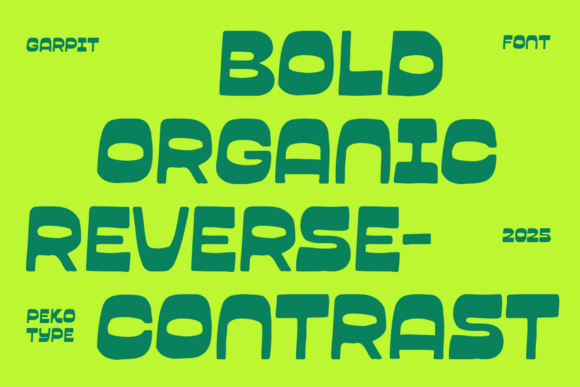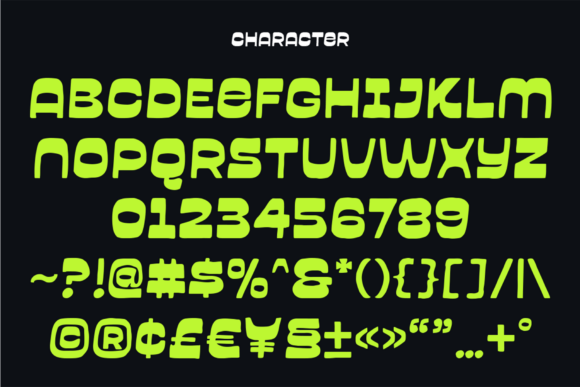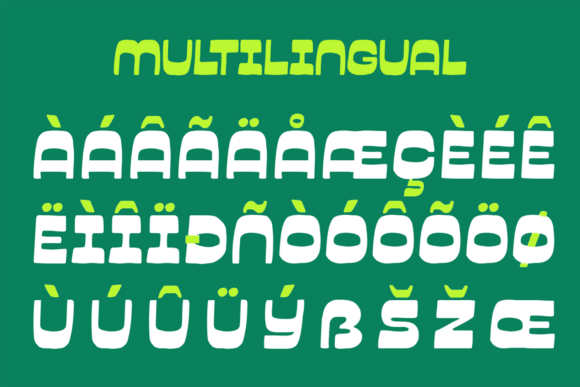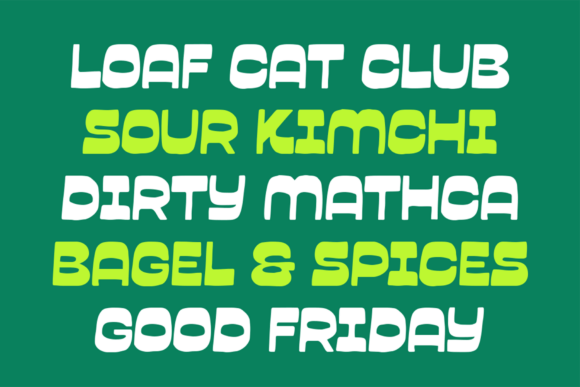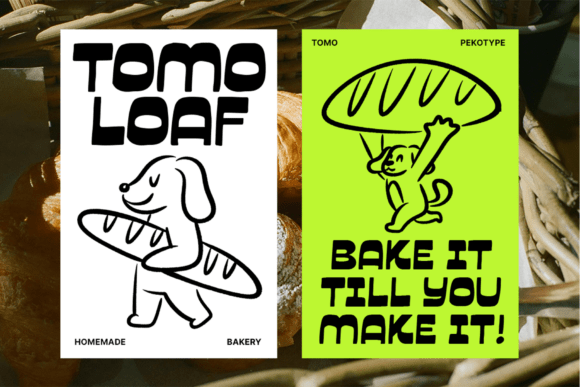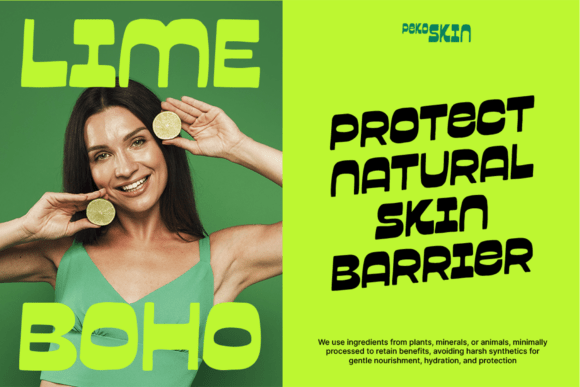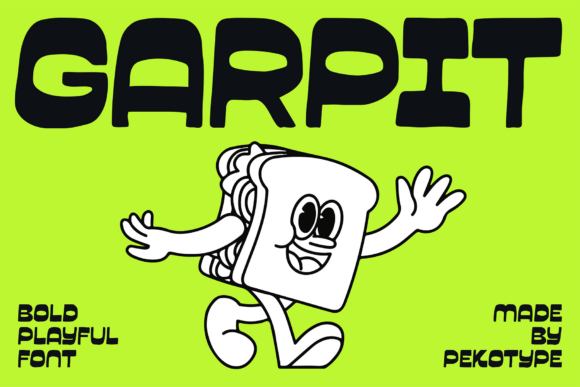
Introducing Garpit Font: The Bold, Playful, and Organic Typeface That’s Changing the Game
In the world of typography, a good font can make all the difference in capturing the attention of your audience and conveying your message effectively. That’s where GARPIT comes in – a bold, playful, and organic reverse-contrast typeface designed to grab attention instantly. Built as an all-caps font, GARPIT delivers a strong visual voice with chunky shapes, quirky curves, and unexpected stroke contrast that feels modern, expressive, and full of character.
Inspiration and Design
GARPIT is inspired by bold food branding, street visuals, and fun marketing aesthetics, making it perfect for logos, branding systems, packaging, posters, headlines, social media graphics, and promotional designs. Its organic construction gives a friendly and approachable feel, while the reverse contrast adds uniqueness and high memorability—making your message stand out in crowded visual spaces.
The font’s design is characterized by its chunky shapes and quirky curves, which give it a playful and modern feel. The reverse contrast, where the thick and thin strokes are reversed, adds a touch of sophistication and elegance to the font. This unique combination of design elements makes GARPIT a versatile font that can be used in a variety of contexts, from bold headlines to social media graphics.
Multilingual Support
In today’s globalized world, designers need to create inclusive designs that cater to diverse audiences. GARPIT supports multilingual characters, allowing designers to create designs that are consistent in style and tone, regardless of the language or region. This feature makes GARPIT an ideal font for global brands, marketing agencies, and designers who work with international clients.
GARPIT is perfect for designers and crafters who want to add a fresh typographic personality to their work. Whether you’re working on café branding, creative campaigns, lifestyle products, or eye-catching digital content, GARPIT offers a unique and expressive voice that will help you stand out from the crowd.
For designers, GARPIT provides a wide range of creative possibilities. You can use it to create bold and attention-grabbing headlines, or as a display font to add a touch of personality to your designs. For crafters, GARPIT offers a fun and playful way to add a personal touch to your projects, from handmade cards to DIY crafts.
Key Features of GARPIT
- Bold and Playful Design: GARPIT is a bold, playful, and organic reverse-contrast typeface designed to grab attention instantly.
- All-Caps Font: Built as an all-caps font, GARPIT delivers a strong visual voice with chunky shapes, quirky curves, and unexpected stroke contrast.
- Multilingual Support: GARPIT supports multilingual characters, making it perfect for global brands and designers who work with international clients.
- Organic Construction: GARPIT’s organic construction gives a friendly and approachable feel, while the reverse contrast adds uniqueness and high memorability.
- Versatile and Flexible: GARPIT is perfect for logos, branding systems, packaging, posters, headlines, social media graphics, and promotional designs.
In conclusion, GARPIT is a game-changing font that offers a fresh typographic personality that’s perfect for designers and crafters. Its bold, playful, and organic design makes it perfect for grabbing attention and conveying your message effectively. With its multilingual support and versatile design, GARPIT is an ideal font for global brands, marketing agencies, and designers who want to create inclusive designs that cater to diverse audiences.